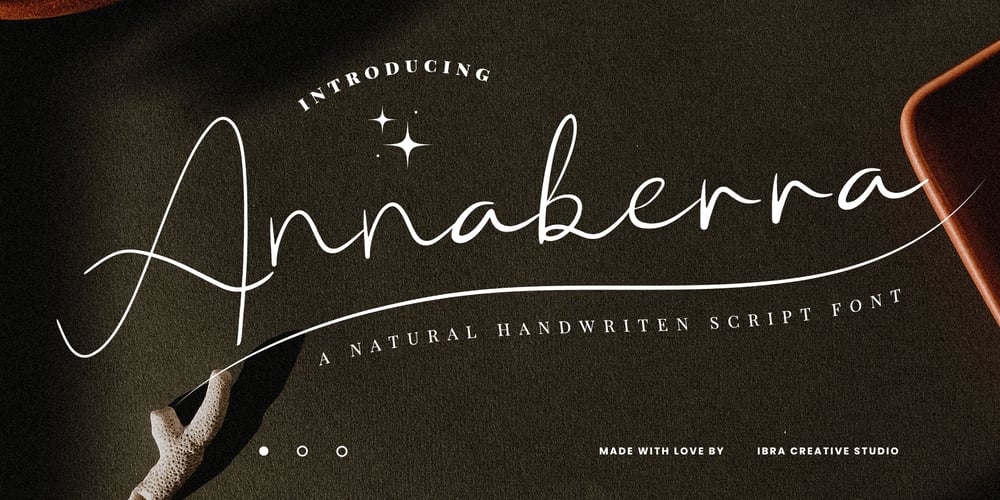
Annaberra Font Family was designed by Roisatul Azizah and published by IbraCreative. Annaberra contains 1 styles and family package options. Annaberra – A Natural Handwriten Script FontAnnaberra, a natural handwritten script font, embodies the essence of organic and fluid penmanship. Crafted with meticulous attention to detail, each stroke of this font reflects the spontaneity and authenticity of hand writing, capturing the nuances of a personal touch. The gentle curves and varied weights of the letterforms lend Annaberra a graceful and inviting appearance, making it an ideal choice for projects seeking an approachable yet sophisticated aesthetic. Whether used for invitations, branding, or creative displays, Annaberra exudes a timeless charm, seamlessly blending the warmth of human expression with the convenience of digital typography.Annaberra is perfect for branding projects, logo, wedding designs, social media posts, advertisements, product packaging, product designs, label, photography, watermark, invitation, stationery, game, fashion and any projects.Fonts include multilingual support for; Afrikaans, Albanian, Czech, Danish, Dutch, English, Estonian, Finnish, French, German, Hungarian, Italian, Latvian, Lithuanian, Norwegian, Polish, Portuguese, Slovak, Slovenian, Spanish, Swedish.